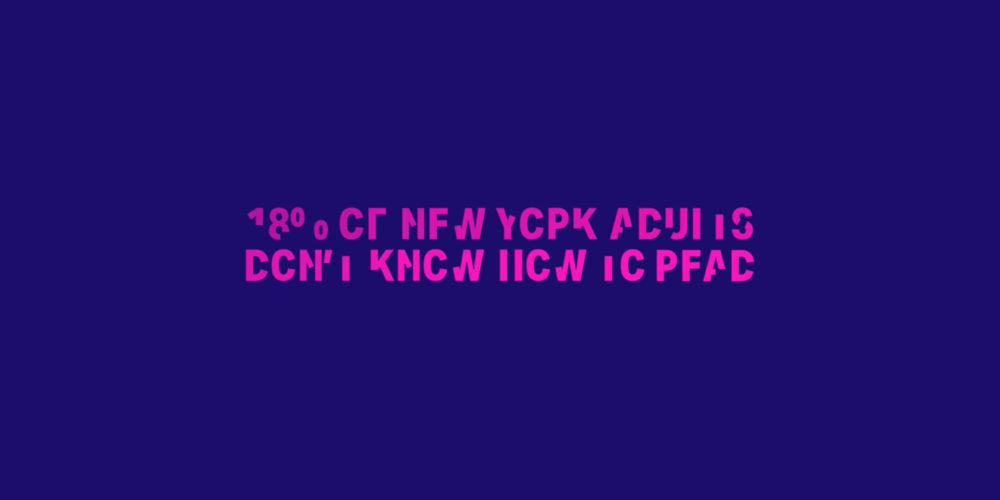
This Broken Typeface Symbolizes The Struggle of Illiteracy for 18% of New Yorkers
You just read the title of this article and you didn’t even think twice about it.
When we read, we don’t even realize that we’re reading and doing something incredible.
Something so simple, so insignificant to us, is an entirely vital part of life.
Something we do all day long and don’t pay any attention to it.
Did you know that 18% percent of New Yorkers face the daily struggle of illiteracy?
Think about what life would be like if you couldn’t read.
How difficult day to day life would be.
Sans 18% is a broken typeface created specifically to show us what it’s like to not be able to read.
This new typeface was intentionally created to be unintelligible.
To show us the struggle of what it is like to not be able to read, and to put ourselves in the shoes of others.
Sans 18% was created by Literacy Partners with the intent to show us what life is like for roughly 18% of New Yorkers who can not read, and to give a solution to people who face this problem.
When you can’t read, you face problems you would never imagine.
Reading and understanding important documents is impossible.
Being independent becomes a million times harder.
This font shows you what it’s like to look a billboard, document, or even doctor’s prescription and not be able to understand what’s going on.
The video from up above, which is narrated by a person who learned how to read from the Literacy Partners association, shows just how important it is to be able to read.
I personally am all for Literacy Partners.
Literacy Partners provides free classes, books, workshops, and education to immigrants and caregivers in New York who want to learn how to read.
The PSA video was shared on Times Square for one day, and is running digitally with pro bono support from media agency m/SIX.
CEO of Literacy Partners, Anthony Tassi said, “We can’t afford for some members of our community not to be able to read basic public health information. Their inability to do so has potentially fatal consequences for not only their families but for everyone around them.”
They have also ensured that the literacy programs have been made available online for those who cannot attend in person, and they have made sure that the families who participate in these workshops and classes have all the technology they need in order to participate.
I found it very eye opening.